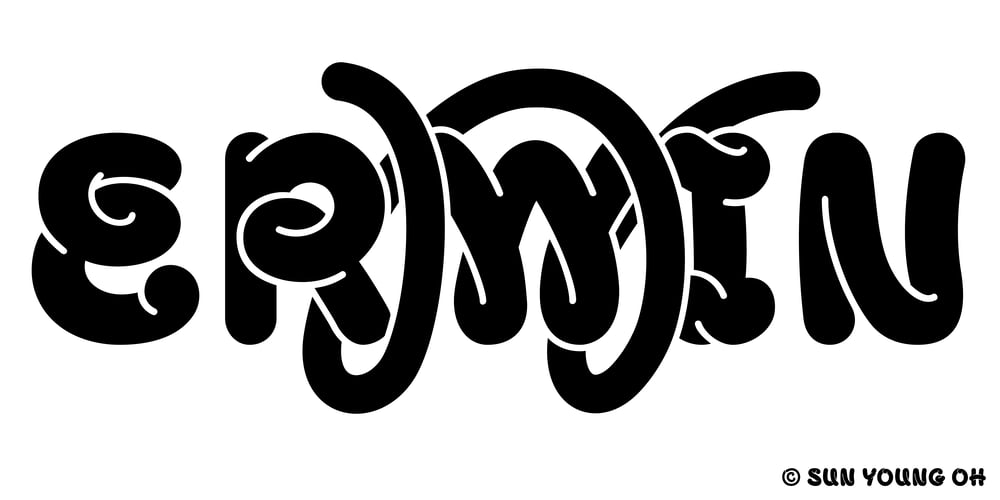
Erwin Font Family was designed by Sun Young Oh and published by Sun Young Oh. Erwin contains 1 styles and family package options. Inspired by an Austrian artist Erwin Wurm’s Fat series, Erwin is a typeface that evokes visual associations of overeating letters, giving the impression of letters on the brink of bursting. This design seamlessly combines an analog sensibility with a bold touch. Erwin is a typeface with a sense of fragility and vulnerability, deeply rooted in analog emotions. Each character is not derived from a model but crafted through a hand-drawing process, making every letter a unique and independent form. This approach reduces regularity between characters while preserving their artistic qualities, resulting in an unconventional letter flow. Erwin underwent a handwriting process but doesn’t exhibit an overtly hand-drawn style. Instead, it is a unique display typeface, featuring artistic, comic-style, and humorous elements.